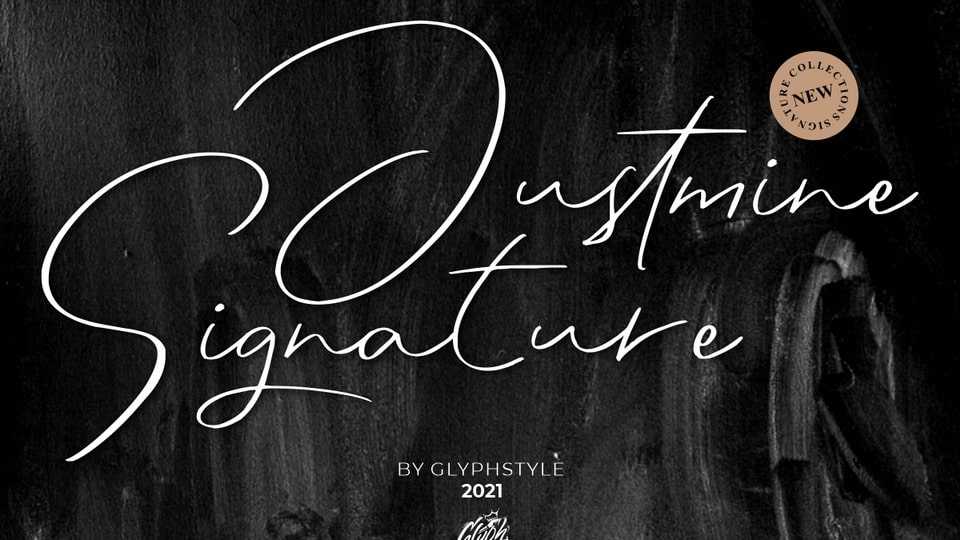
Download Justmine font, a signature style typeface that is casual and easy to read. This signature font is perfect for, watermarks, branding, business, business cards, product logos, etc.